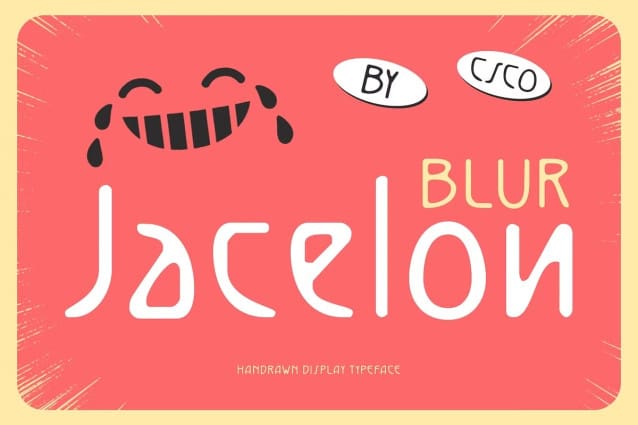
Jacelon Blur Font
Jacelon Blur Font is a sans serif font with a unique Art Deco style and a blur vibe, perfect for display purposes. Its distinctive design and blurred elements create a captivating and artistic look, ideal for posters, branding, and other projects that require a touch of sophistication.
With its sharp lines and blurred details, Jacelon Blur offers a fresh take on Art Deco fonts. The unique style and blur vibe create a dynamic and stylish look, perfect for designs that demand attention and convey a sense of elegance and glamour.
Whether you’re designing a retro-themed poster or creating a stylish website header, Jacelon Blur is sure to make an impression. Its Art Deco style and blur vibe make it perfect for displays that need a touch of vintage charm and modern flair.
Despite its distinctive appearance, Jacelon Blur is versatile and easy to use. The font works well in both large and small sizes, making it suitable for a variety of applications, from headlines and banners to body text and more. With its blend of unique Art Deco style and blur vibe, Jacelon Blur adds a touch of sophistication to any design.